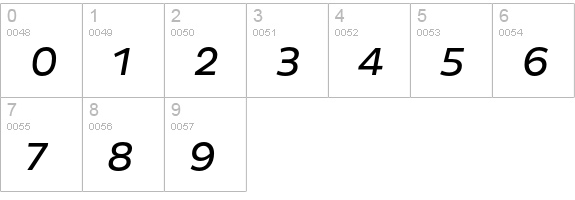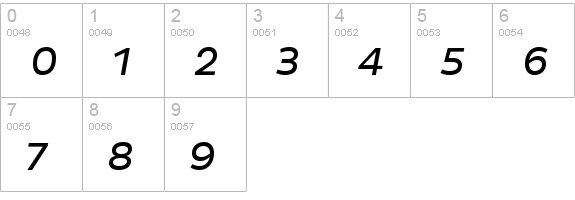
Pluto Sans Regular Italic Font Details
Pluto Sans Regular Italic is the standard, neutral, italic variant in the Pluto typeface family \xE2\x80\x94 well suited to general body text, paragraphs, and standard typographic work.
Introducing Pluto Sans Regular Italic font - a sleek and modern typeface designed to elevate your design projects with its elegant and distinctive style. The italicized version of Pluto Sans Regular exudes a sense of sophistication and creativity, making it perfect for adding a touch of flair to any text. The slanted letterforms create a dynamic and engaging look that is sure to catch the eye. What sets Pluto Sans Regular Italic font apart is not just its aesthetic appeal, but also the fact that it is available for free download at FontsMarket.com. This means that you can easily access and use this high-quality typeface for your personal and commercial projects without any cost. Whether you're working on branding, marketing materials, or any other design project, Pluto Sans Regular Italic font is a versatile and stylish choice that will help you stand out from the crowd. Don't miss out on the opportunity to enhance your designs with this beautiful and free font - download Pluto Sans Regular Italic now from FontsMarket.com and start creating stunning visuals that make a lasting impression.